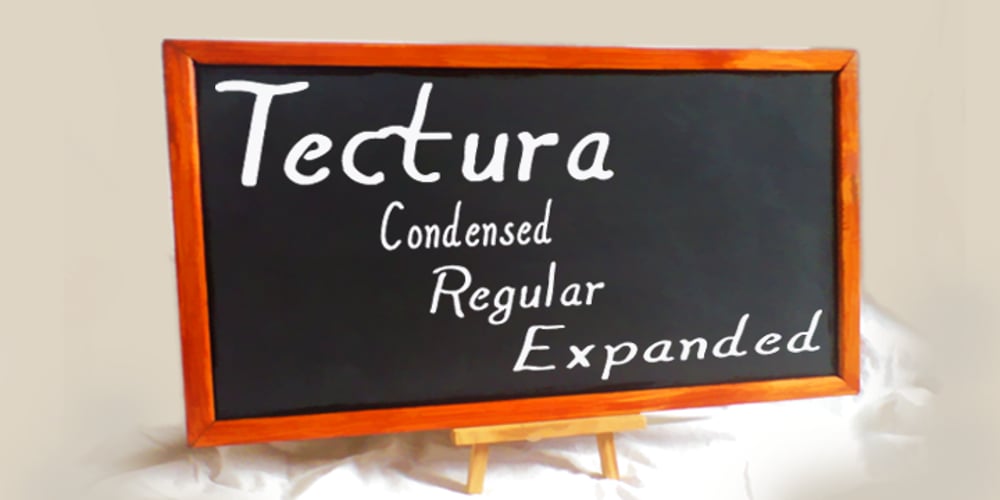
Tectura Font Family was designed by published by Greater Albion Typefounders. Tectura contains 3 styles and family package options. Tectura is hand drawn letters that come to you from the typefounders. It’s all about those slight-but-telling imperfections that separate hand lettering—which this really is—from machine drawn imperfections. Use it for any work that needs an authentic touch of the human hand, it’s genuinely hand drawn, yet clear and legible at all sizes.